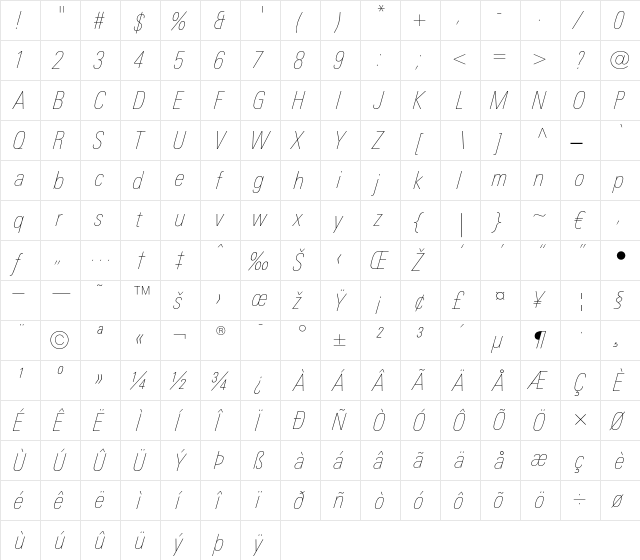
LTUnivers 121 CondUltLtIt
Design Context for LTUnivers Typeface
LTUnivers takes a measured approach to typography — its balanced proportions and neutral character make it a reliable workhorse for both digital and print work. The condensed width makes it efficient for tight spaces without sacrificing legibility.